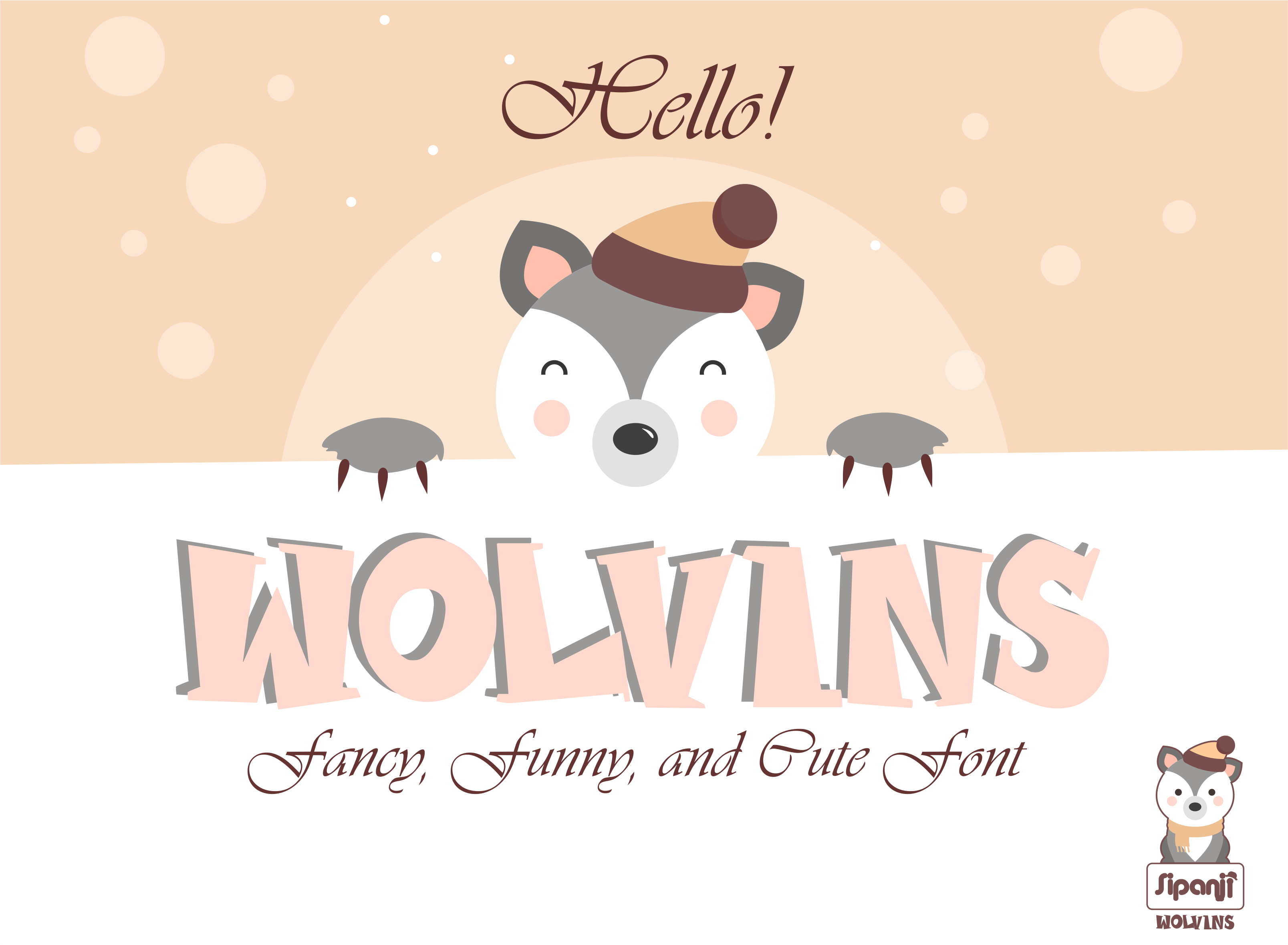
Wolvins Cute Font
Wolvins is a funny, bold and cute display font with a unique twist. Get inspired by its unique feel, and turn to add a lovely charm to any crafts project